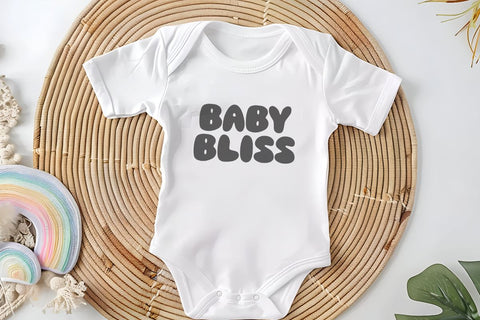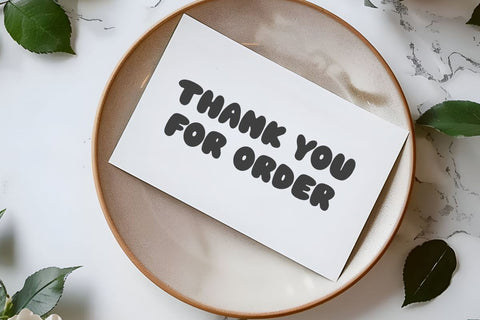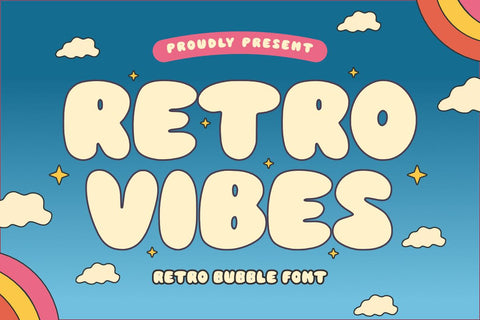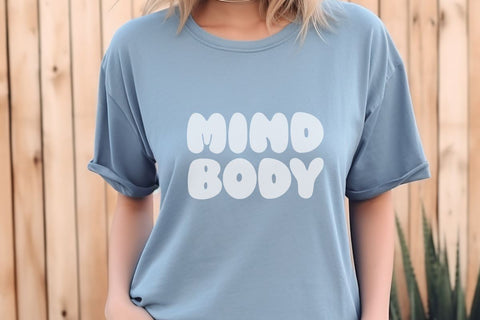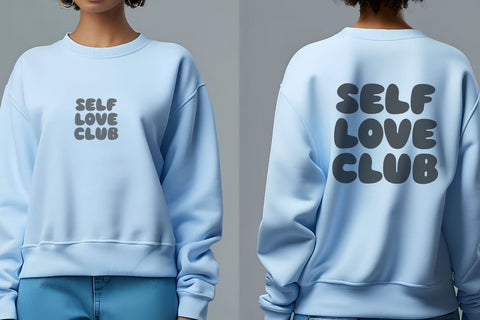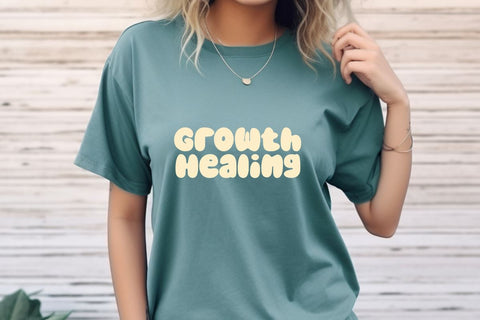
Retro Vibes - Retro Bubble Font
Retro Vibes is a playful bold retro bubble display font. font inspired by Retro Christmas typography design. This font is very suitable for celebrating the warmth of Christmas. This font is also perfect for t-shirts, apparel, mugs, wall art, pillows, key chains, baby clothes, sublimation, crafts, Cricut, silhouettes, tumblers, cards, stickers, hoodies, and many other creative ideas. Apart from that, this font is suitable for Christmas, Thanksgiving, Halloween, fall, autumn, spring, Easter, children’s, weddings, and other themes. This font is also perfect for advertising and social media.